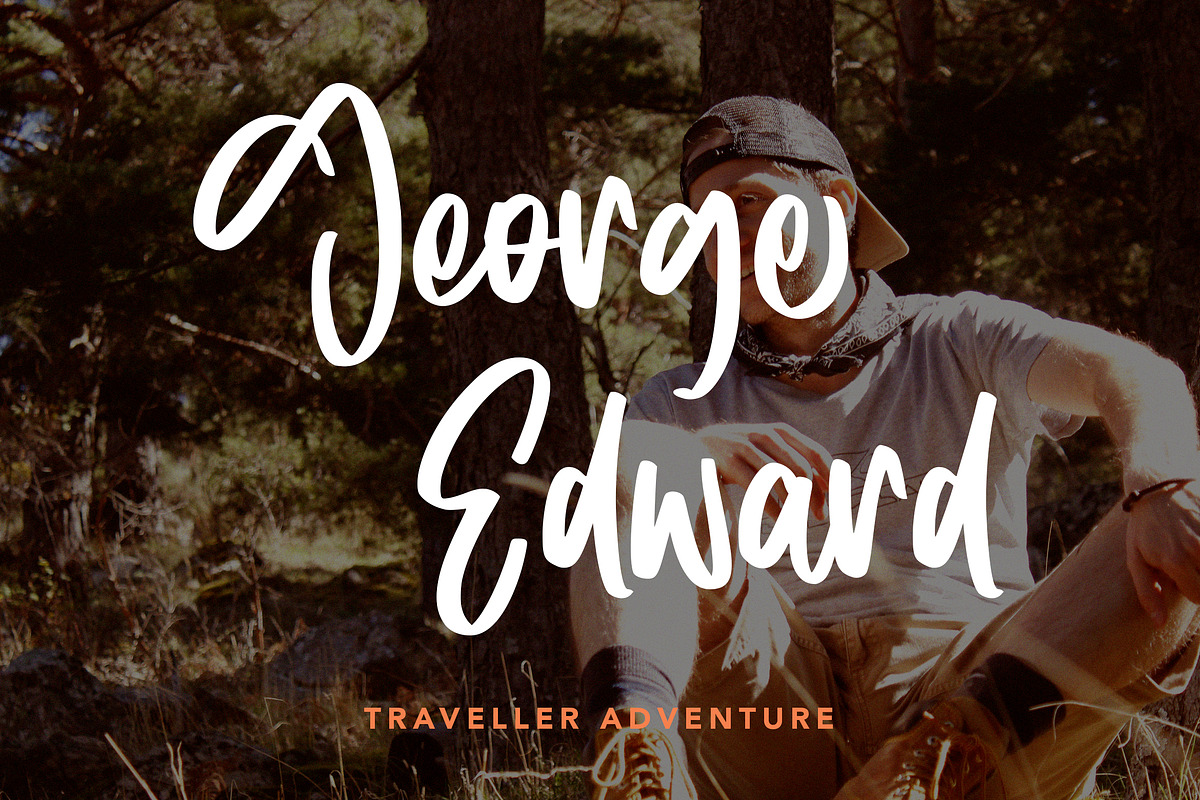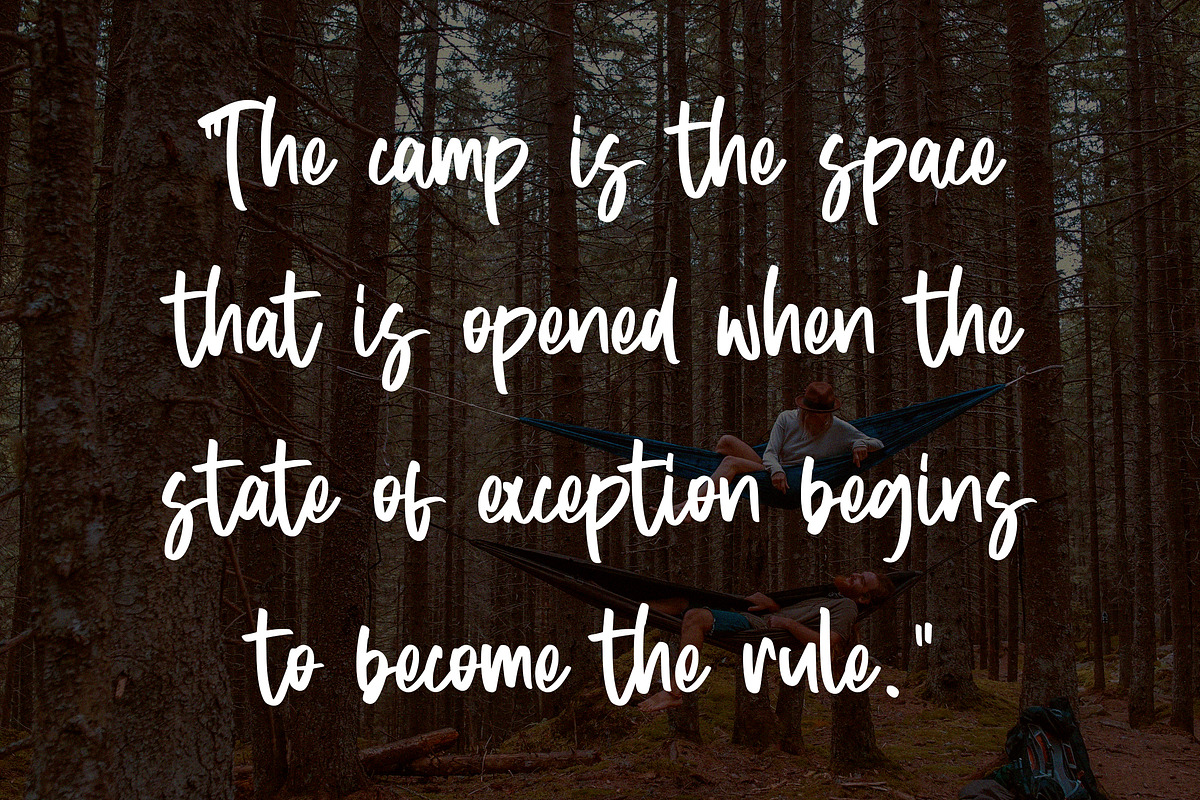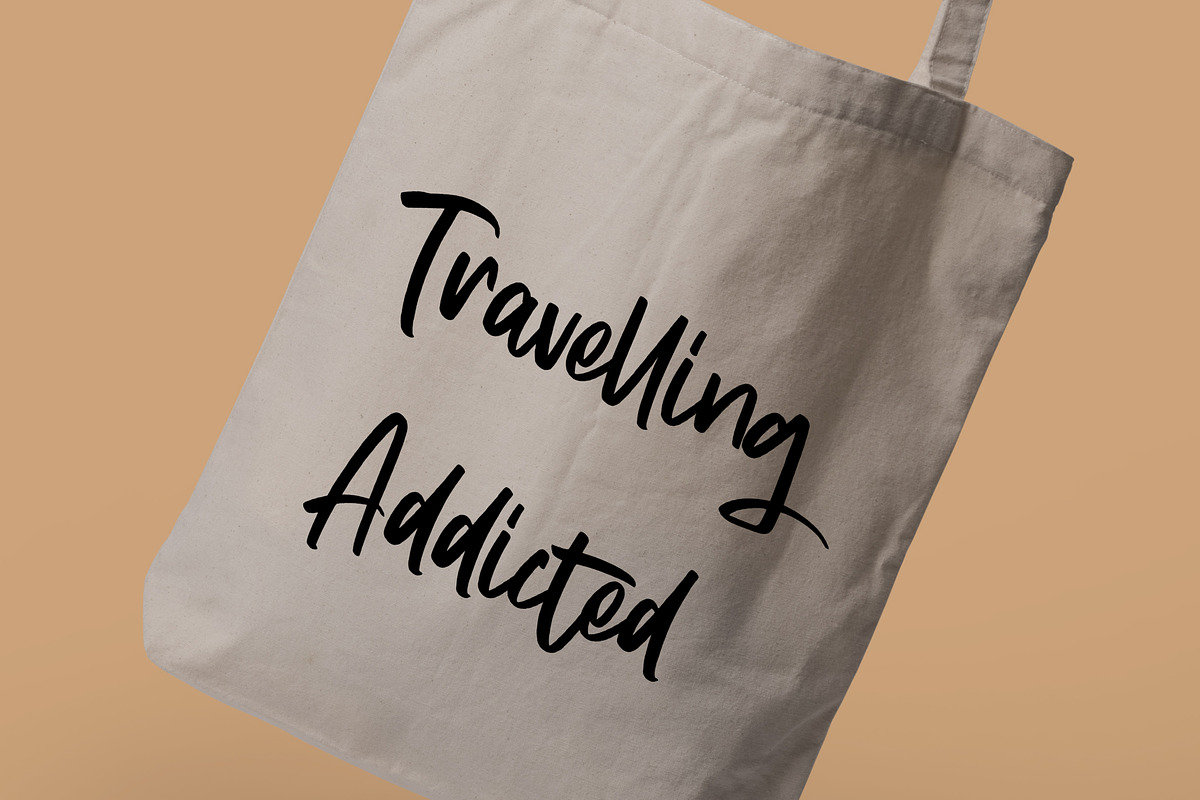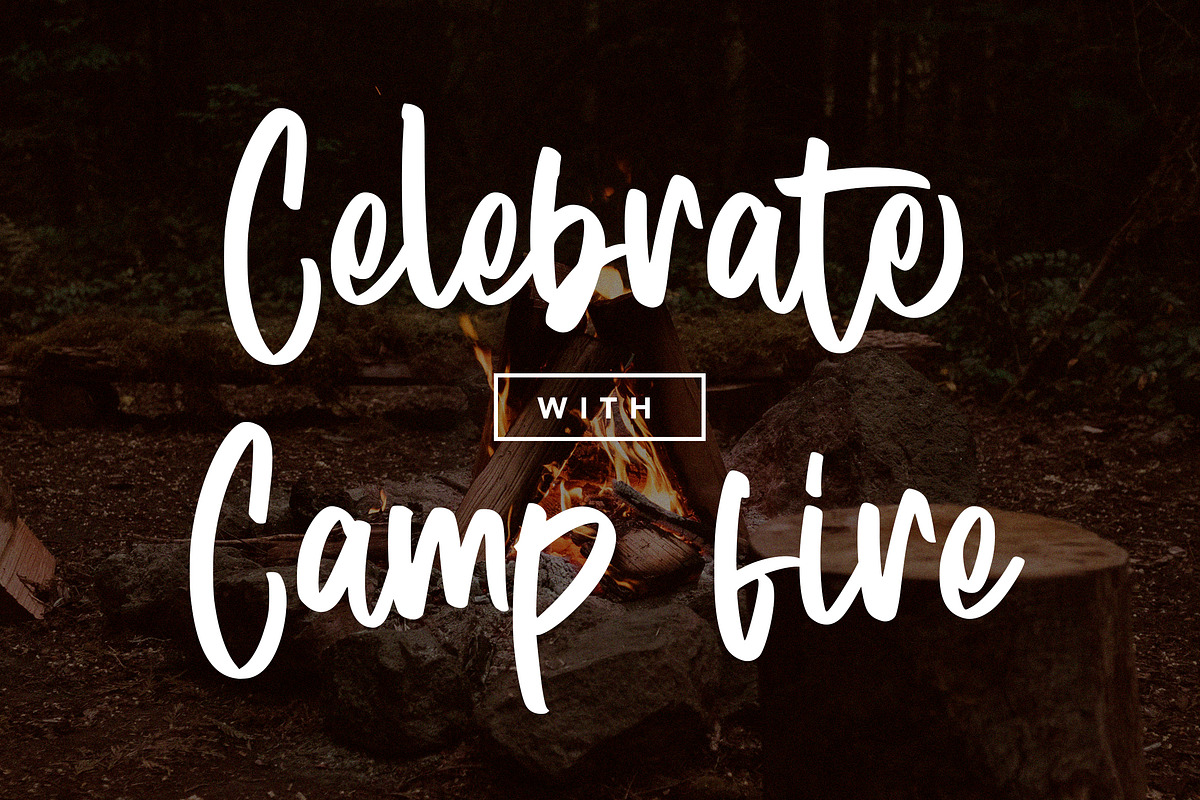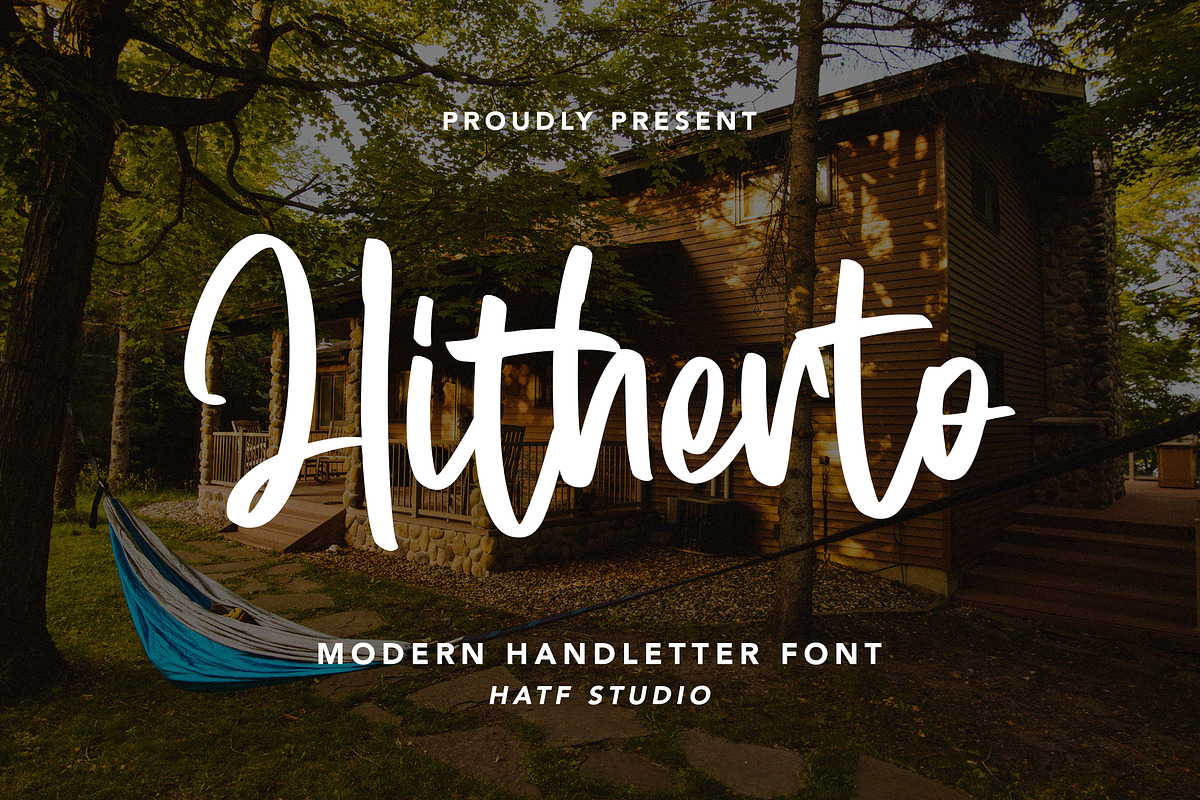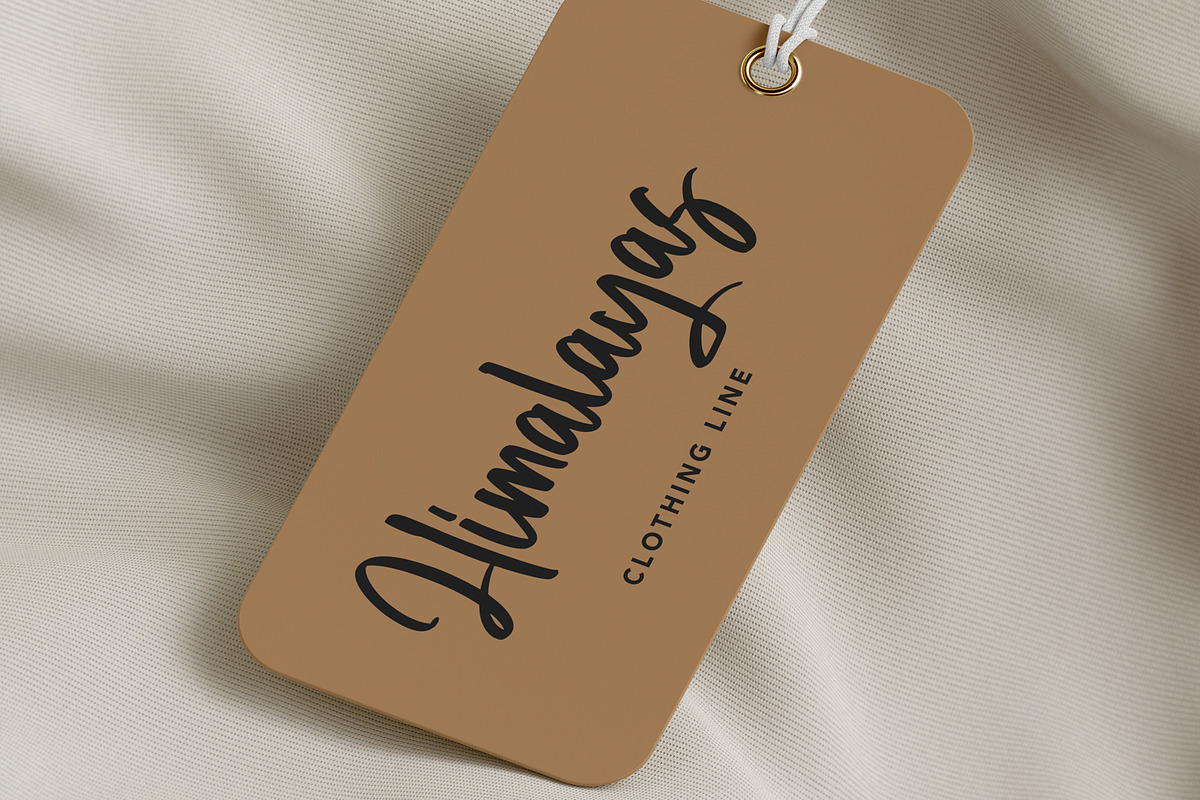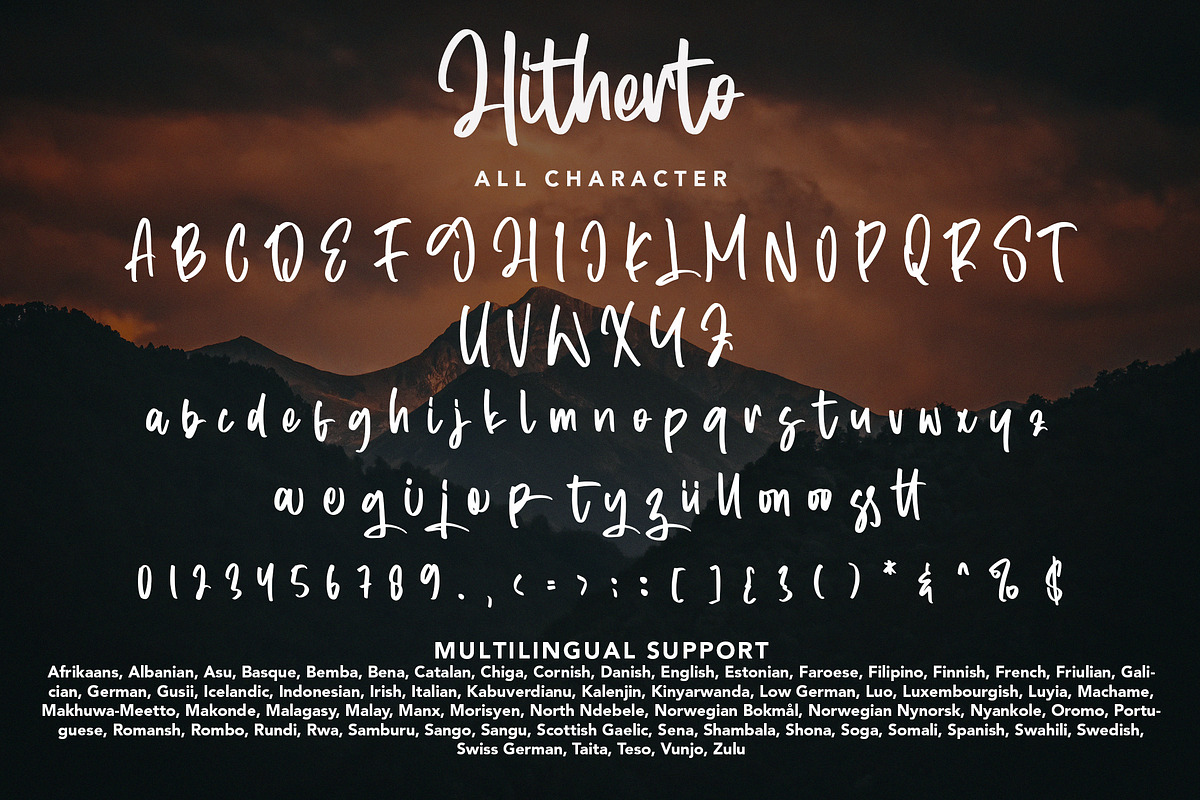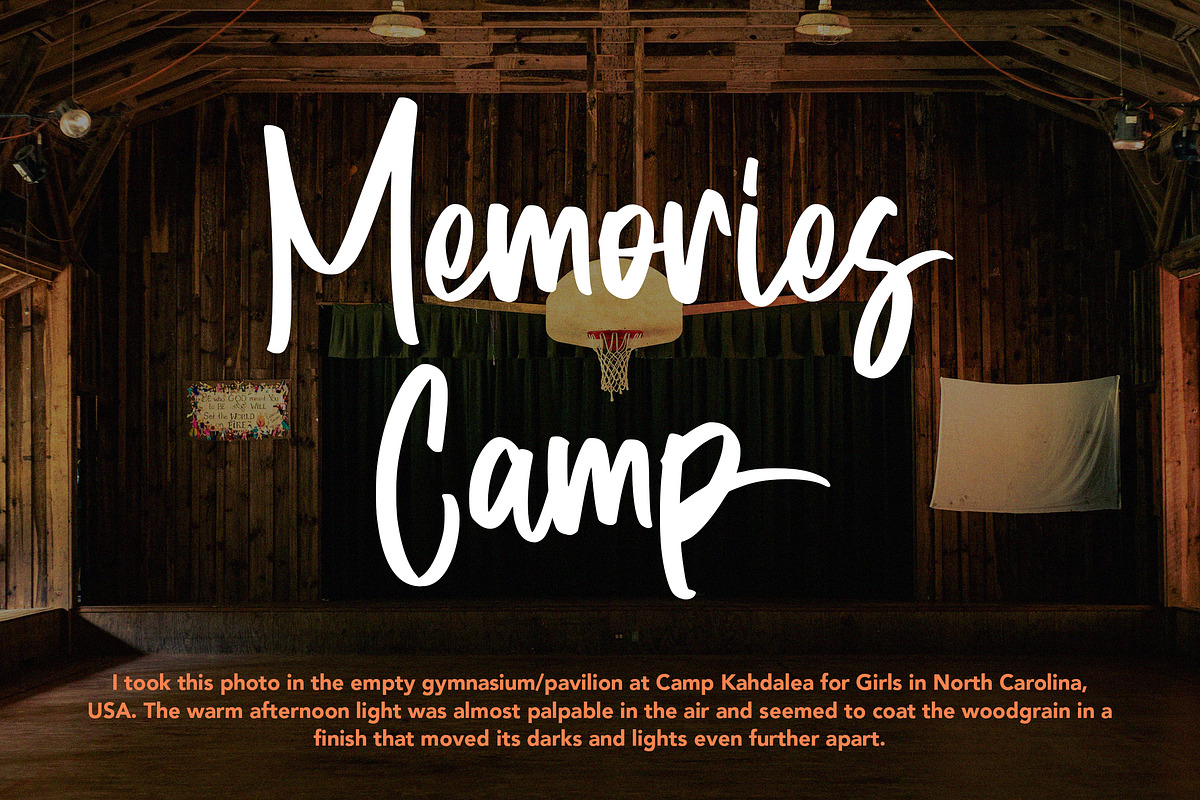
Hitherto
HITHERTO is a handwritten font with an elegant and modern style, designed to bring a classic yet trendy touch to every design work. This font has smooth lines and dynamic curves, making it perfect for various creative projects, from branding, logos, wedding invitations, to packaging and social media designs. Each character in this font is structured with precision but still leaves a natural, organic impression, creating a balance between formality and warmth.
With HITHERTO, you can add a unique aesthetic that is classy and captivating to every text. Inspired by traditional calligraphy styles but adapted to today's design trends, this font is here to strengthen your visual message. Suitable for various creative concepts, HITHERTO promises flexibility and artistic appeal that is hard to match.